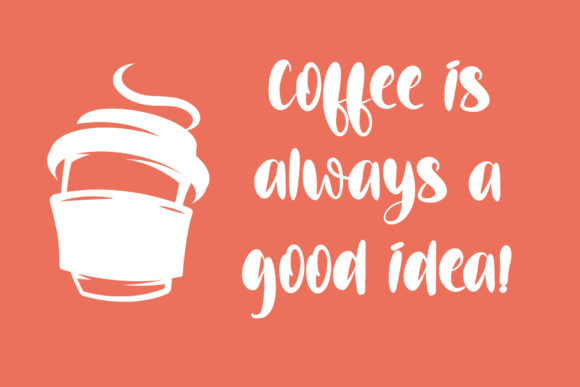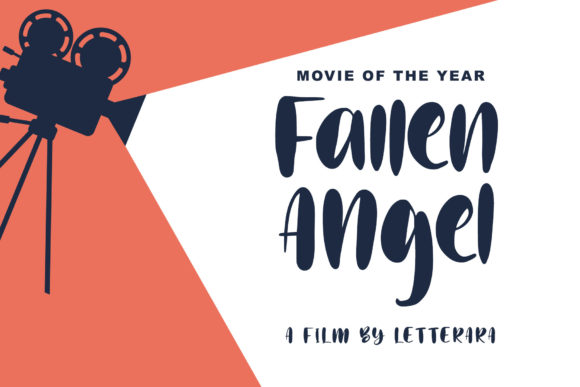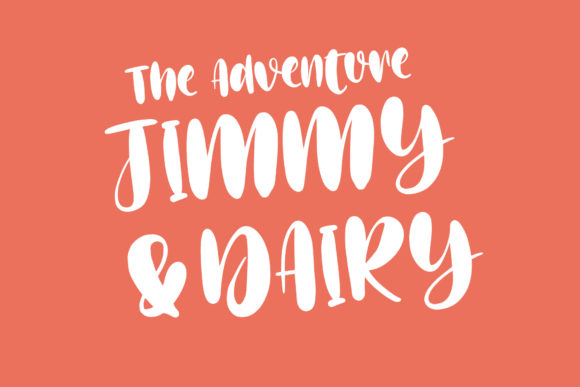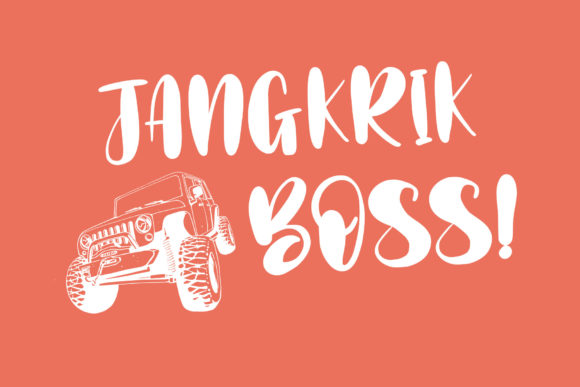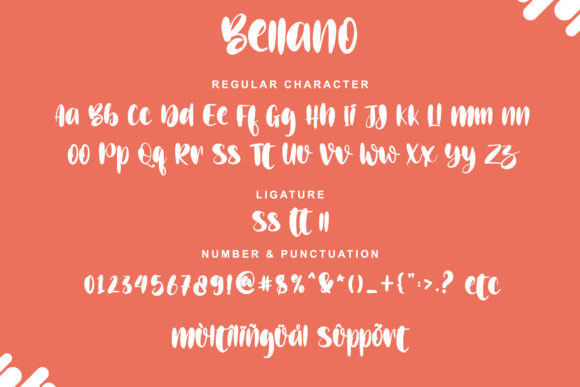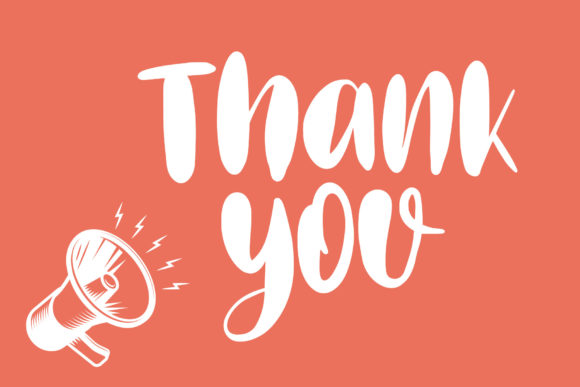
Bellano Font: A Sweet and Delicate Handwritten Font for Your Creative Projects
Are you a designer or crafter looking for a unique and elegant font to elevate your projects? Look no further than Bellano, a sweet and paint-brushed handwritten font that is sure to capture your audience’s attention. With its delicate flow and balanced strokes, Bellano is the perfect addition to any design or crafting project.
What is Bellano Font?
Bellano is a carefully crafted handwritten font that exudes a sense of sweetness and charm. Its delicate flow and varied strokes make it a versatile font that can be used for a wide range of projects, from wedding invitations and branding materials to social media graphics and craft tutorials.
Not too thin and not too thick, Bellano’s strokes are perfectly balanced to create a beautiful, organic look that is both elegant and approachable. Whether you’re looking to add a touch of whimsy or sophistication to your projects, Bellano is the perfect choice.
Key Features of Bellano Font
• Sweet and delicate flow: Bellano’s handwritten strokes are smooth and fluid, giving your projects a beautiful, organic feel.
• Balanced and varied strokes: Not too thin and not too thick, Bellano’s strokes are perfectly balanced to create a unique and elegant look.
• Paint-brushed texture: Bellano’s font has a subtle paint-brushed texture that adds depth and character to your projects.
• Versatile and adaptable: Bellano can be used for a wide range of projects, from digital graphics to print materials.
Why Choose Bellano Font?
So why choose Bellano font for your projects? Here are just a few reasons:
• Add a personal touch: Bellano’s handwritten font adds a personal and human touch to your projects, making them stand out from the crowd.
• Create a unique brand identity: With Bellano, you can create a unique and recognizable brand identity that sets you apart from others.
• Elegant and sophisticated: Bellano’s elegant strokes and delicate flow make it perfect for projects that require a touch of sophistication.
• Easy to read: Despite its delicate nature, Bellano is surprisingly easy to read, making it perfect for body text and captions.
How to Use Bellano Font in Your Projects
Using Bellano font in your projects is easy! Here are a few ideas to get you started:
• Wedding invitations and stationery: Bellano’s elegant strokes and delicate flow make it perfect for wedding invitations, save-the-dates, and other stationery.
• Branding and packaging: Use Bellano to create a unique and recognizable brand identity for your business or product.
• Social media graphics: Add a touch of elegance and sophistication to your social media graphics with Bellano.
• Craft tutorials and patterns: Bellano is perfect for craft tutorials and patterns, adding a personal and human touch to your instructions.
In conclusion, Bellano font is a sweet and delicate handwritten font that is sure to elevate your design and crafting projects. With its balanced strokes, paint-brushed texture, and versatile nature, Bellano is the perfect choice for anyone looking to add a touch of elegance and sophistication to their work.